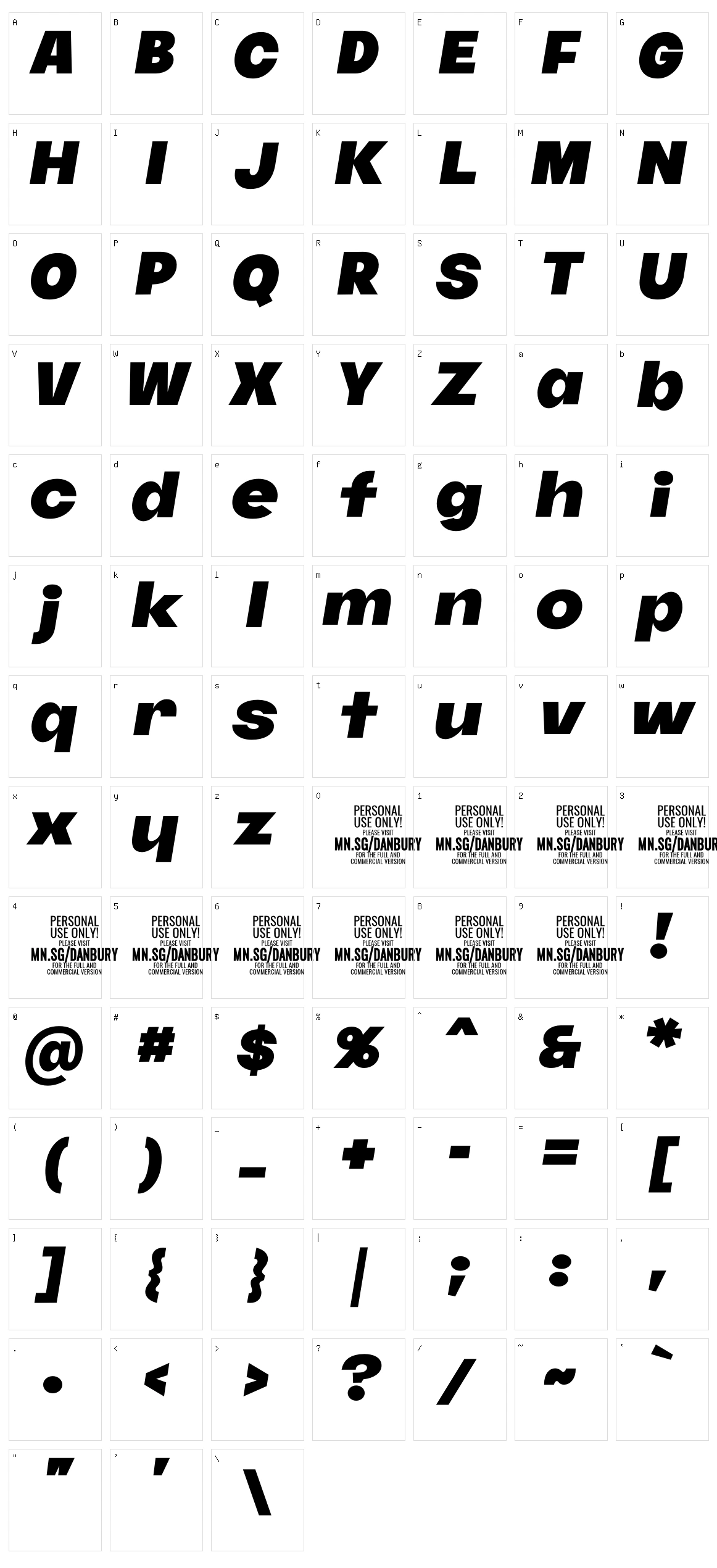
Danbury is a modern sans-serif typeface.
Drawn and created by Mans Greback between 2020-2022, this slanted font has a distinct style and a strong personality. Danbury is a typeface with velocity and power: Use it in a sports campaign, a fresh headline or a cool logotype.
The Danbury family is provided in the styles Regular and Bold, Caps and Caps Bold, Small and Small Bold: the perfect setup for a diverse design usage.
The font is built with advanced OpenType functionality and has a guaranteed top-notch quality, containing stylistic and contextual alternates, ligatures and more features; all to give you full control and customizability.
It has extensive lingual support, covering all Latin-based languages, from North Europe to South Africa, from America to South-East Asia.
It contains all characters and symbols you'll ever need, including all punctuation and numbers.